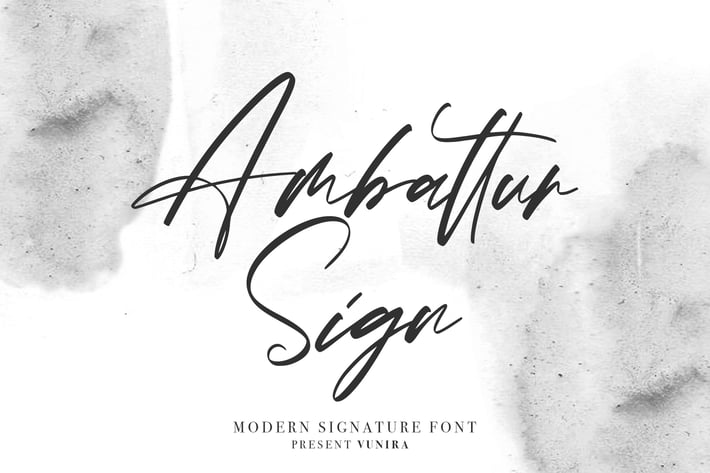
Ambattur Sign | Modern Signature Font
Ambattur Sign | Modern Signature Font with a calligraphy style, So beautiful on invitation like greeting cards, branding materials, business cards, quotes, posters, and more!